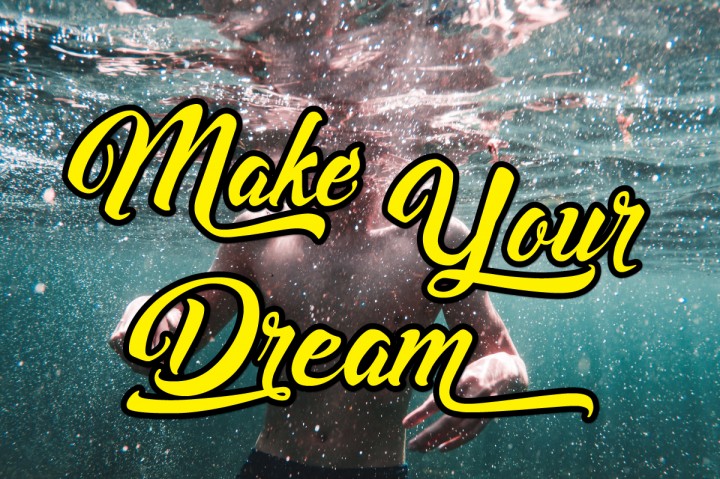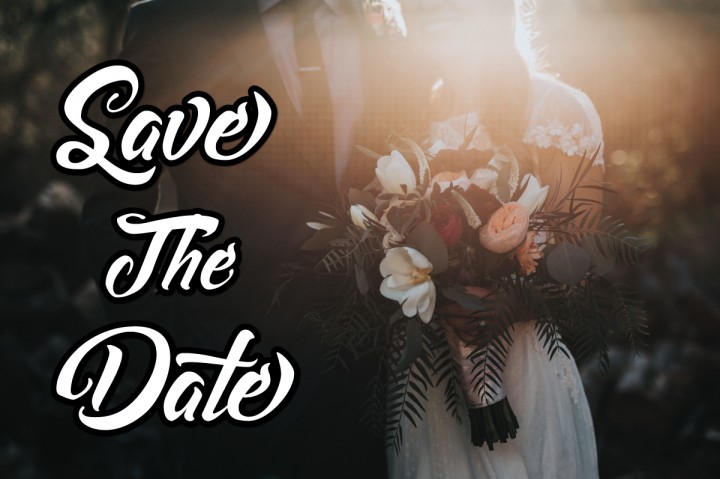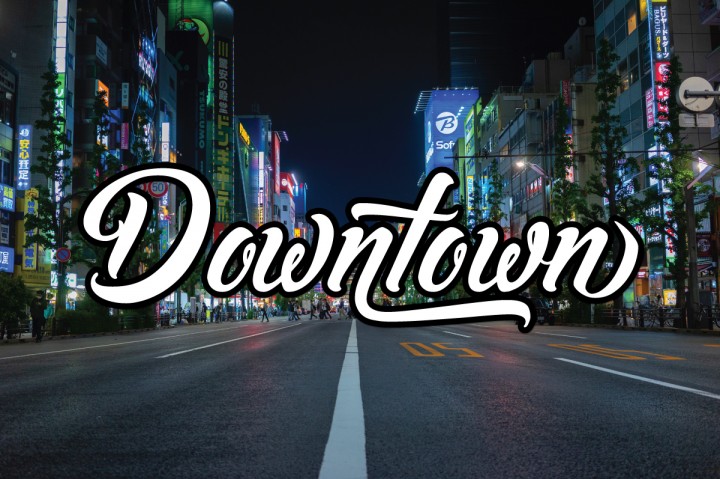
Dialoveshe Script Font
Dialoveshe is a new script font. This font is ideal for branding and decorate your any project. This fonts are perfect for wedding invitation or your blog. you can create a logo or beautiful frame for your home. Or just use for your small business, book covers, stationery, marketing, magazines and more. a full featured open type and multilingual support. This font was created to help you designing brand of yours own or your client, and you also can use it for designing all of the graphic stuff such as badge, sign, packaging, headline, T-shirt/apparel, Poster, etc. File Include